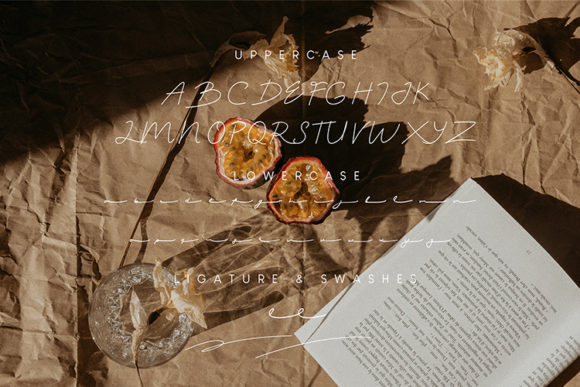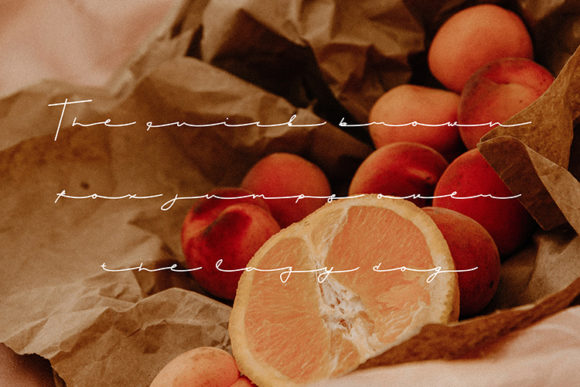
Virghie Font
db-ku.com - Script & Handwritten -- Virghie is a cursive and luxurious handwritten font. Add this thin and elegant font to your fonts repertoire and notice how your designs come alive.